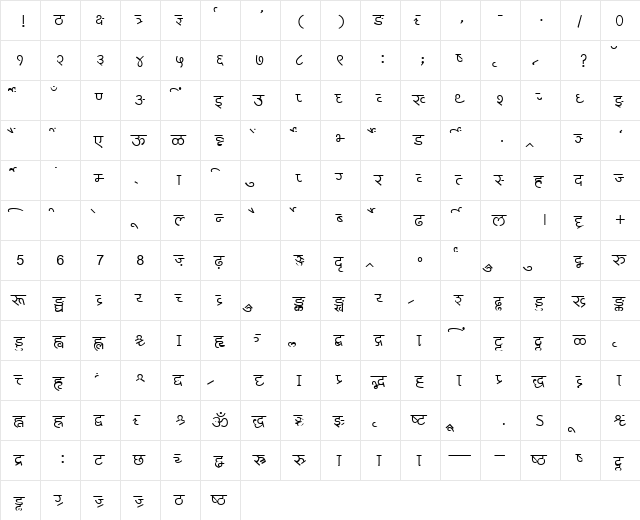
AkrutiDevChakraNormal Normal
Design Context for AkrutiDevChakraNormal Typeface
AkrutiDevChakraNormal offers clean, dependable letterforms without strong stylistic allegiance, making it a practical choice for designers who need flexibility.